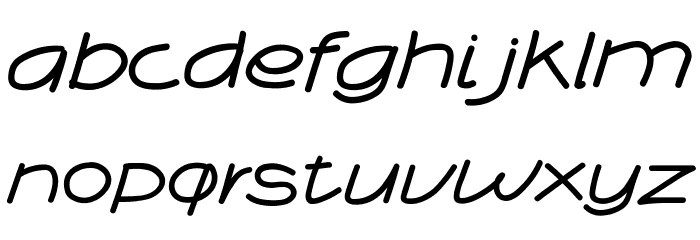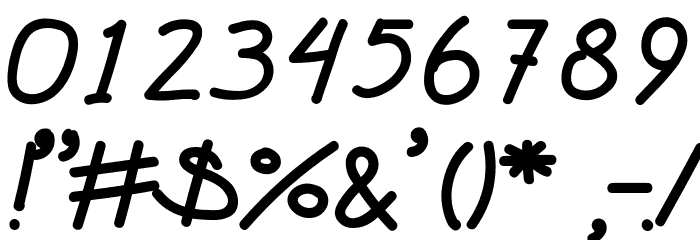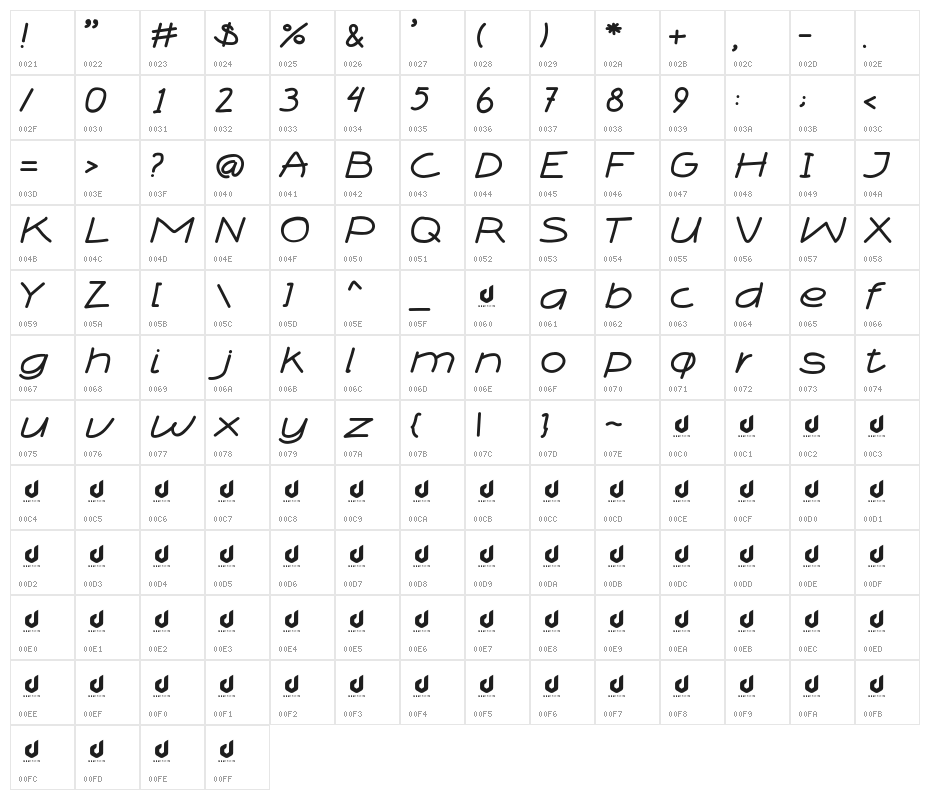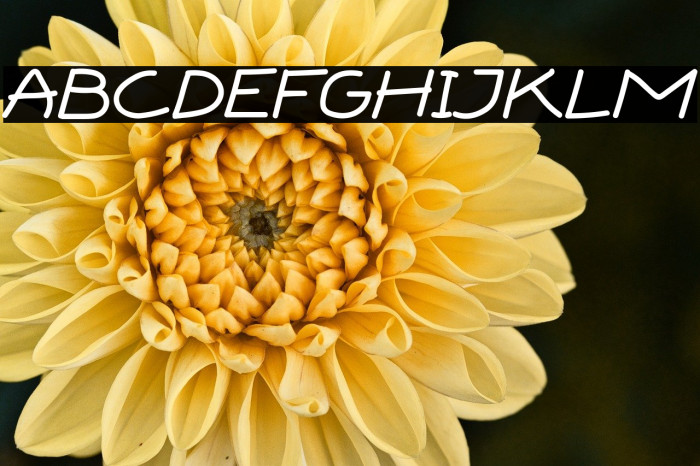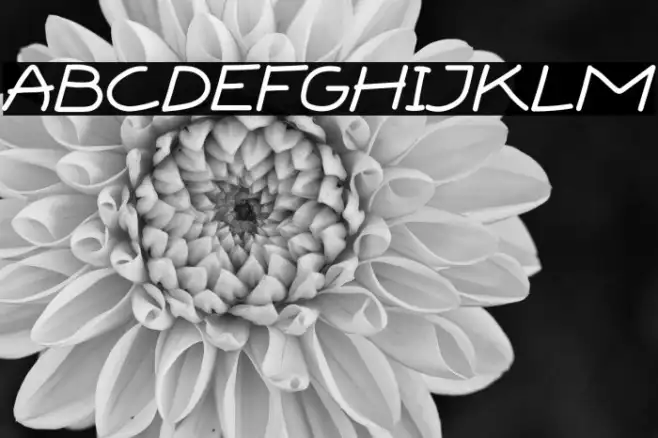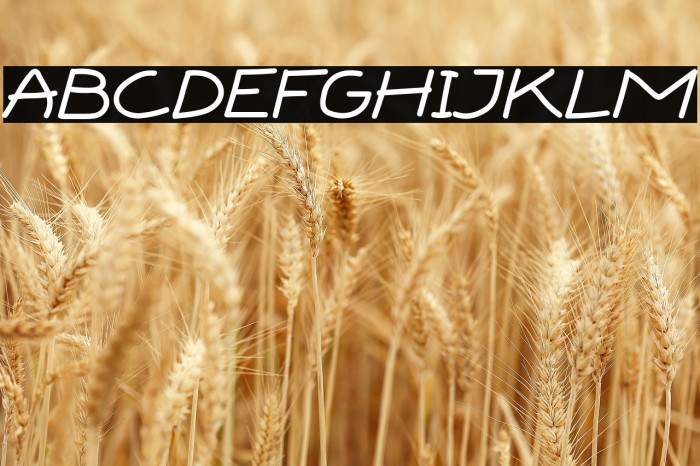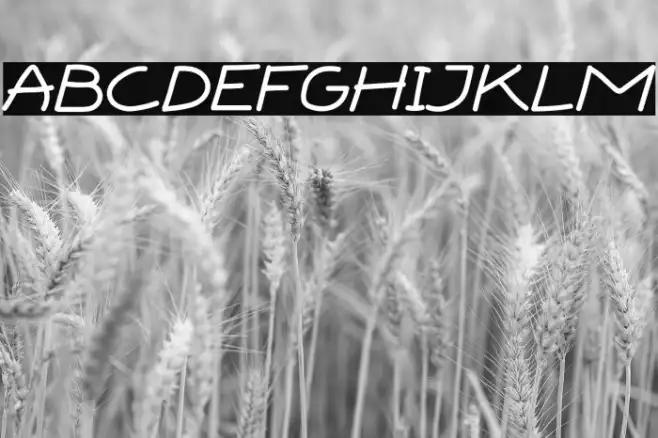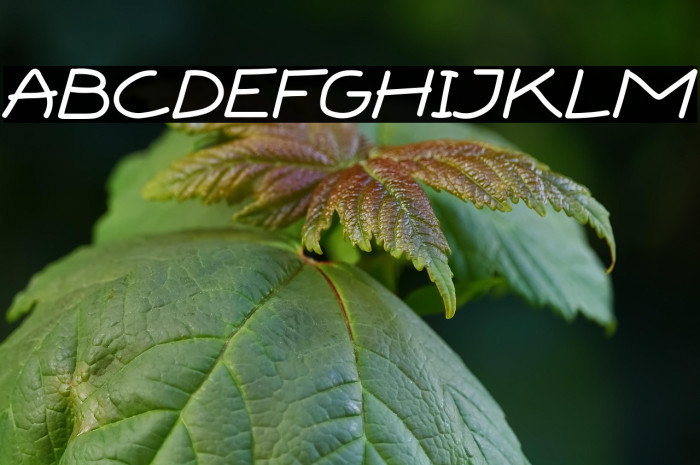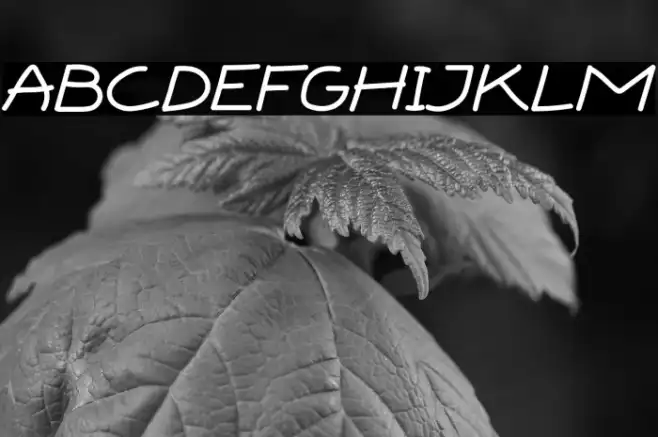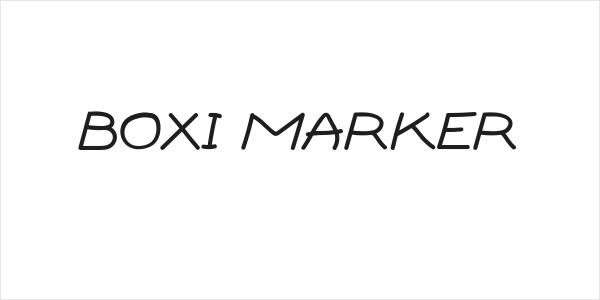
BOXI MARKER Font
This font features a playful and casual handwritten style, reminiscent of marker pen strokes. The letters are slightly slanted, giving a dynamic and informal appearance. The strokes are consistent in width, providing a uniform look across all characters. Uppercase and lowercase letters are well-balanced, with rounded edges that enhance the approachable feel. The numerals and special characters maintain the same style, ensuring cohesion throughout. This font is ideal for projects that require a friendly and personal touch, such as children's books, greeting cards, or informal branding.
A playful, handwritten-style font with consistent marker-like strokes.
- Font: BOXI MARKER
- Proposed Projects: Ideal for children's books, greeting cards, informal branding, and playful designs.
- Category: Handwritten
- Overall Style: Casual
- Use Case: Headlines, Informal text, Branding